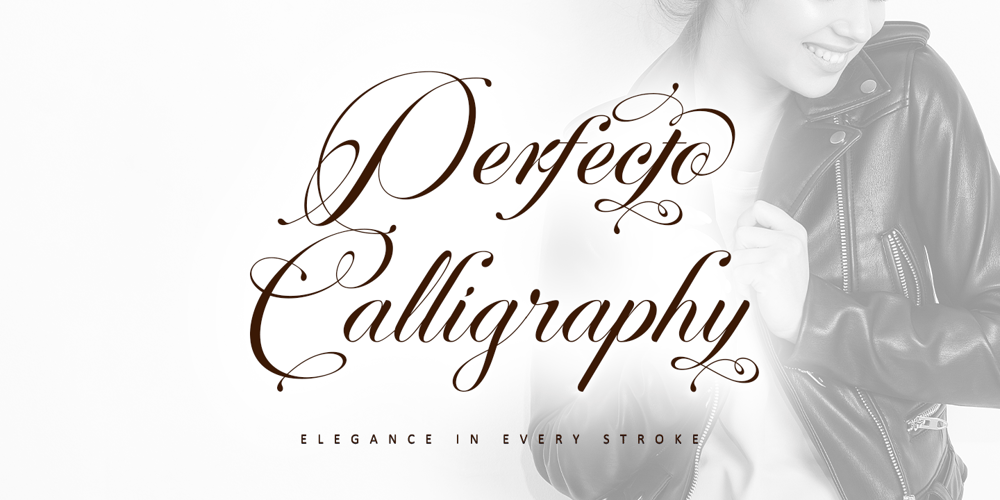
Perfecto Calligraphy Font Family was designed by Thomas Aradea and published by Letterara. Perfecto Calligraphy contains 6 styles and family package options. Discover the allure of “Perfecto Calligraphy,” an exquisite font that embodies the artistry of calligraphy. With its graceful curves and impeccable strokes, this font exudes elegance and sophistication, perfect for adding a touch of refinement to your designs. Whether you’re creating wedding invitations, designing a website, elegant branding, or luxurious packaging, “Perfecto Calligraphy” elevates your projects with its timeless beauty. Its PUA encoding ensures easy access to a variety of unique glyphs and swashes, allowing you to create captivating designs effortlessly. Embrace the art of calligraphy with “Perfecto Calligraphy,” and let your creativity flourish.